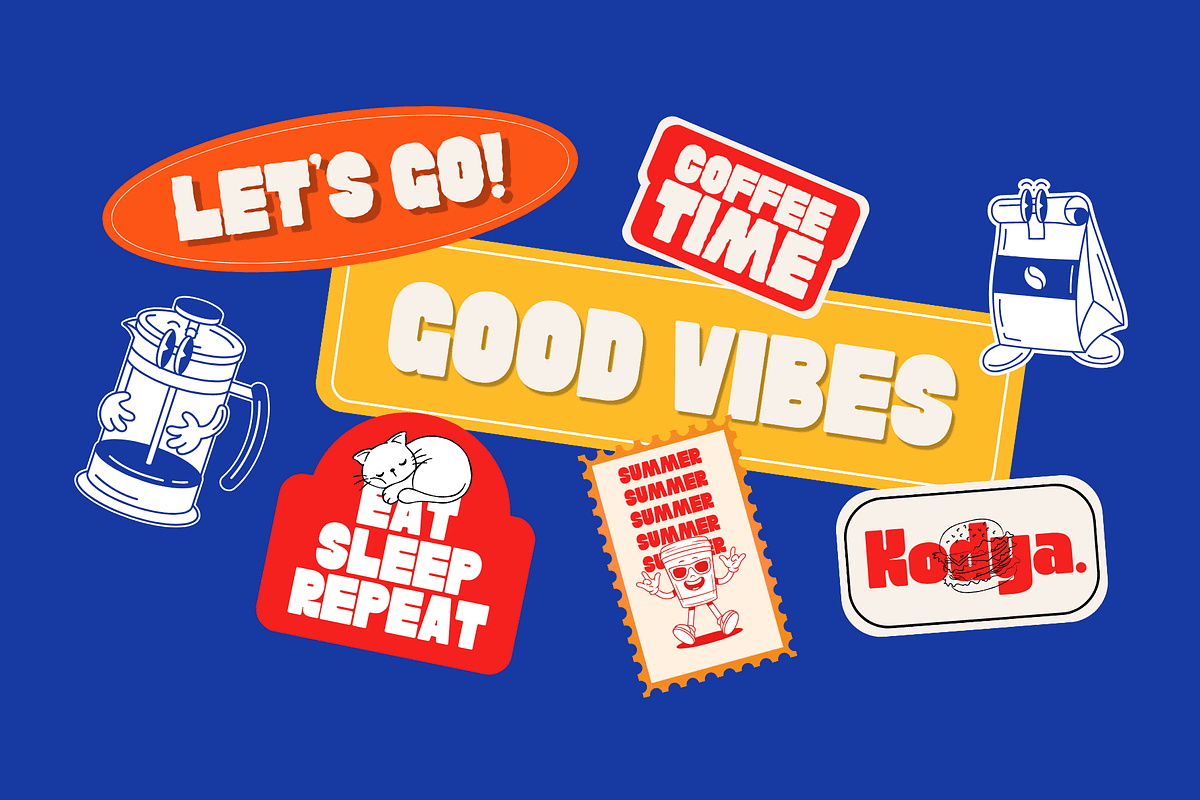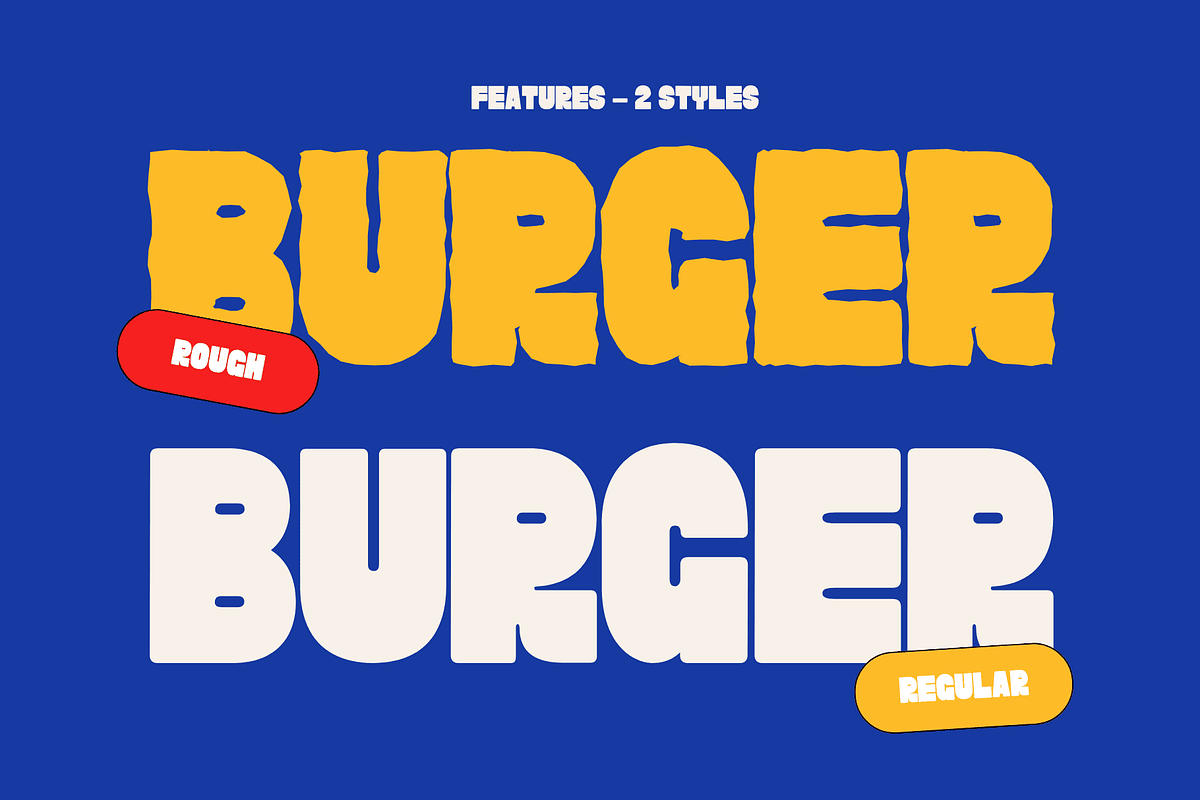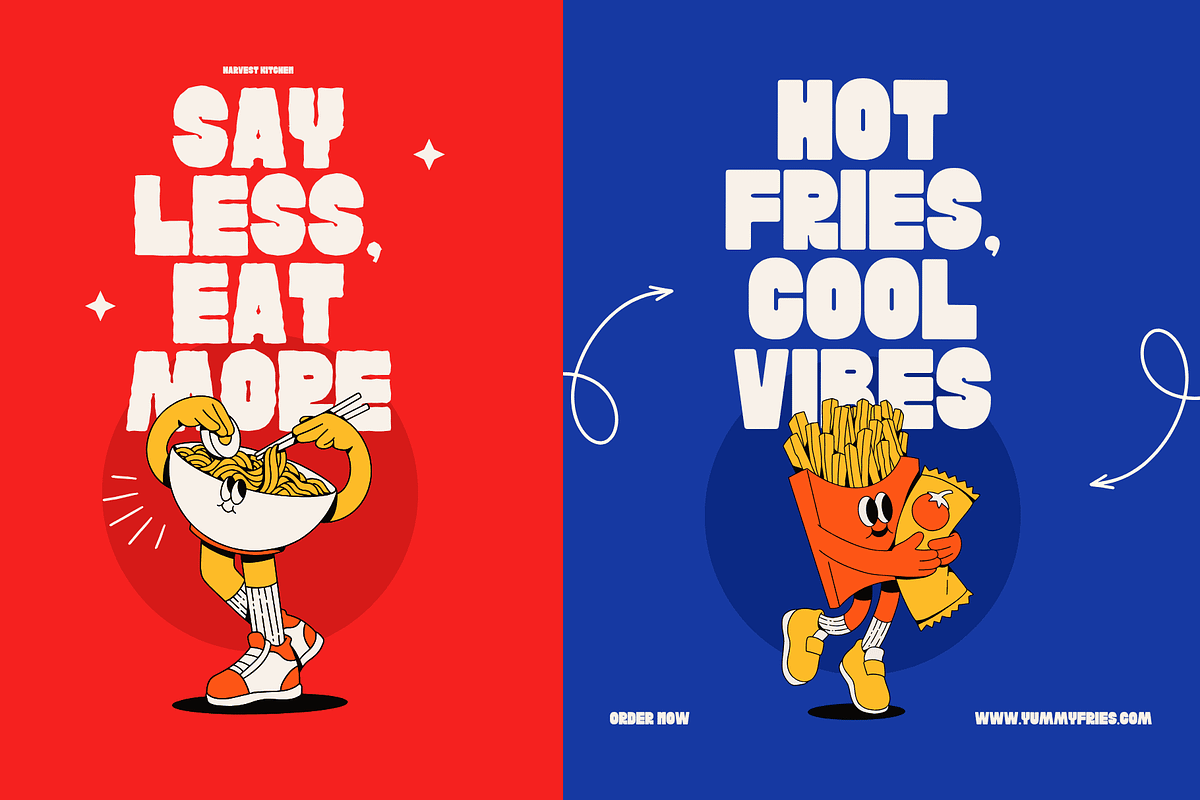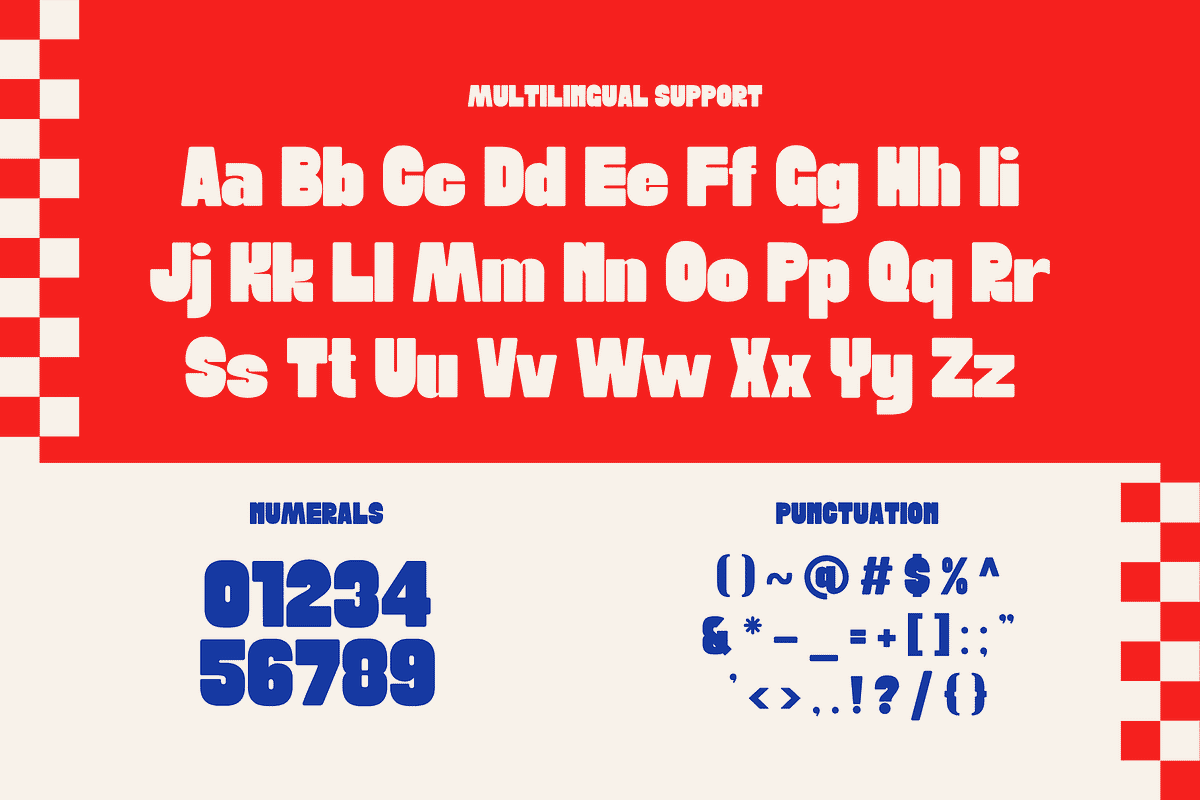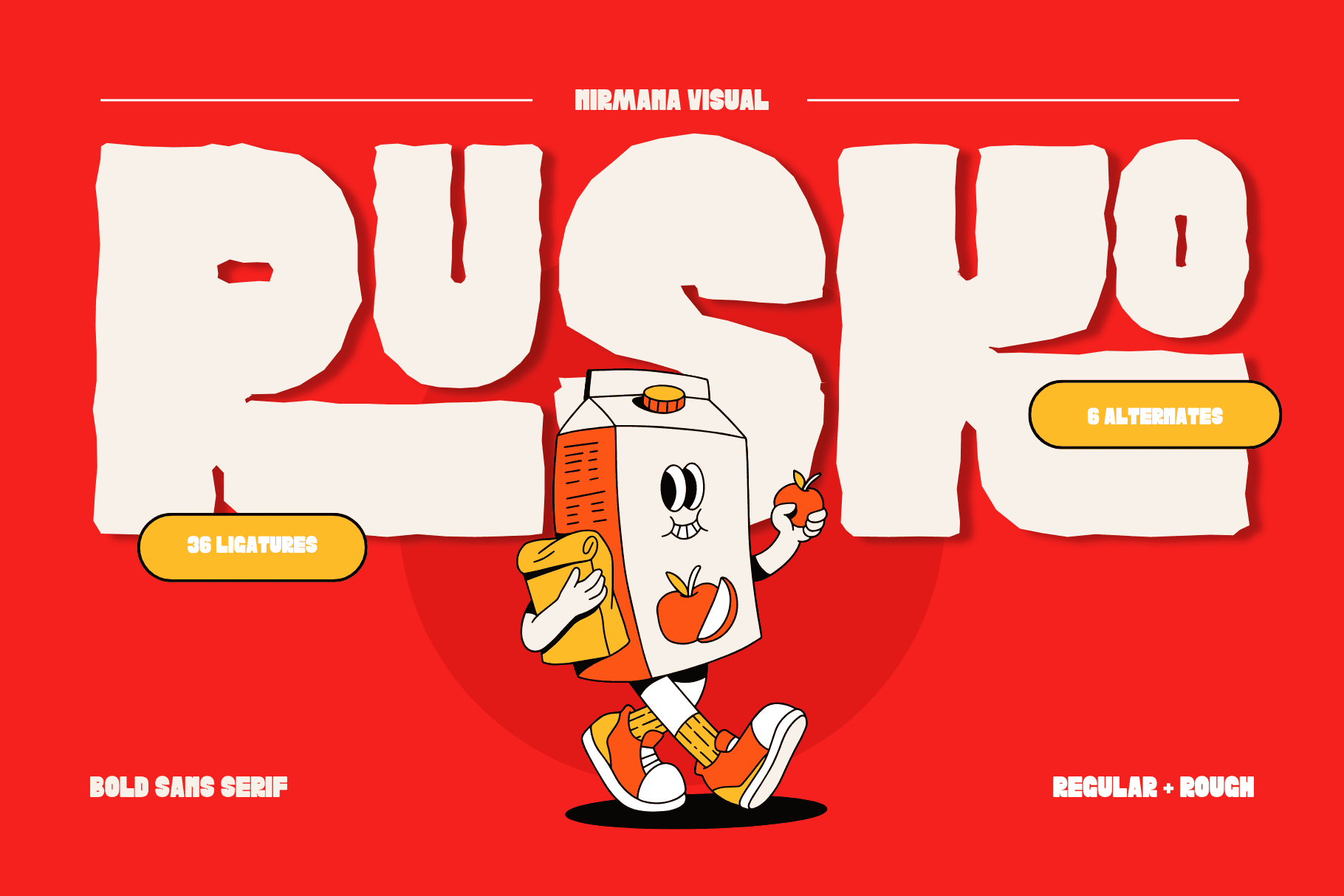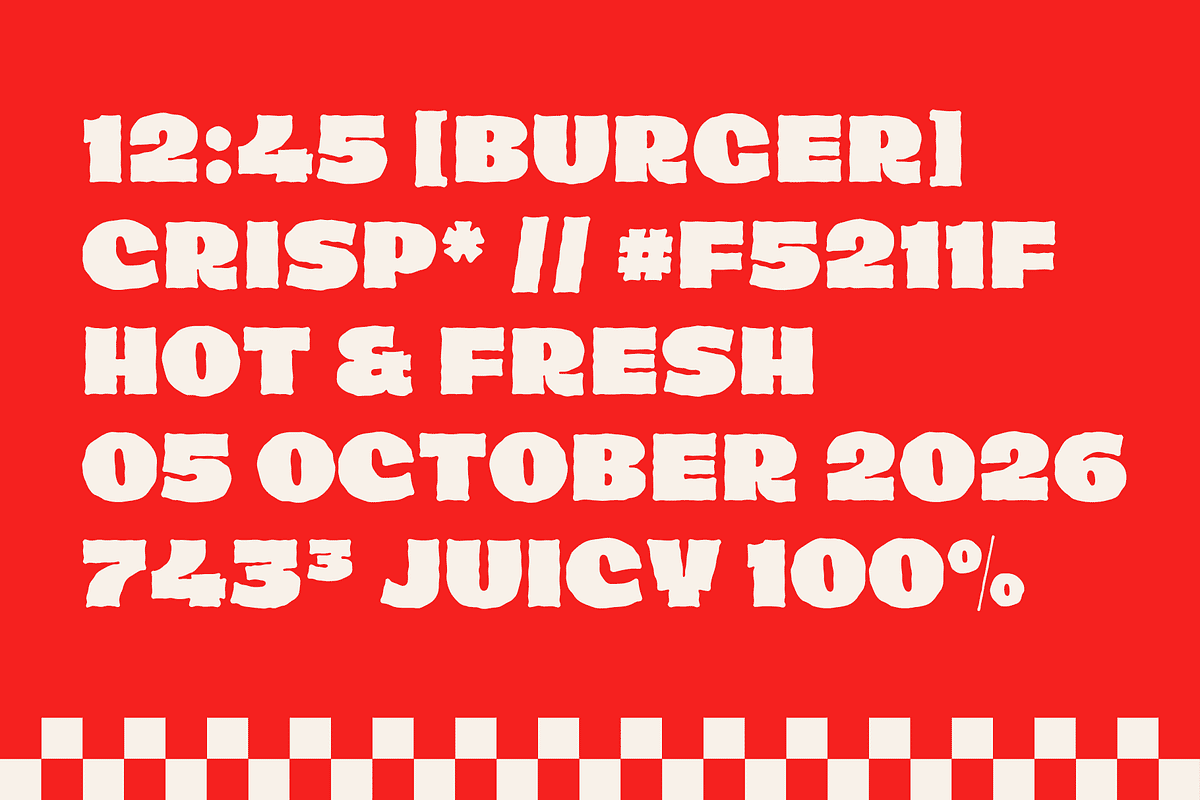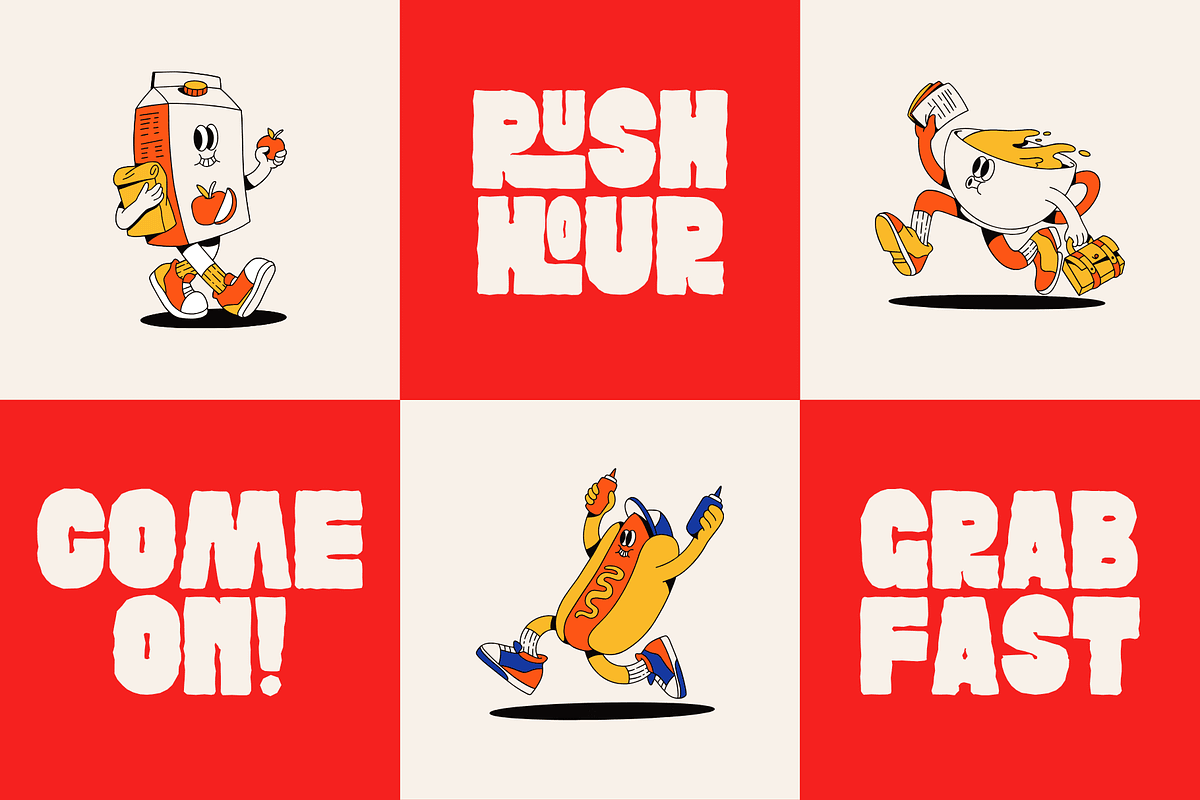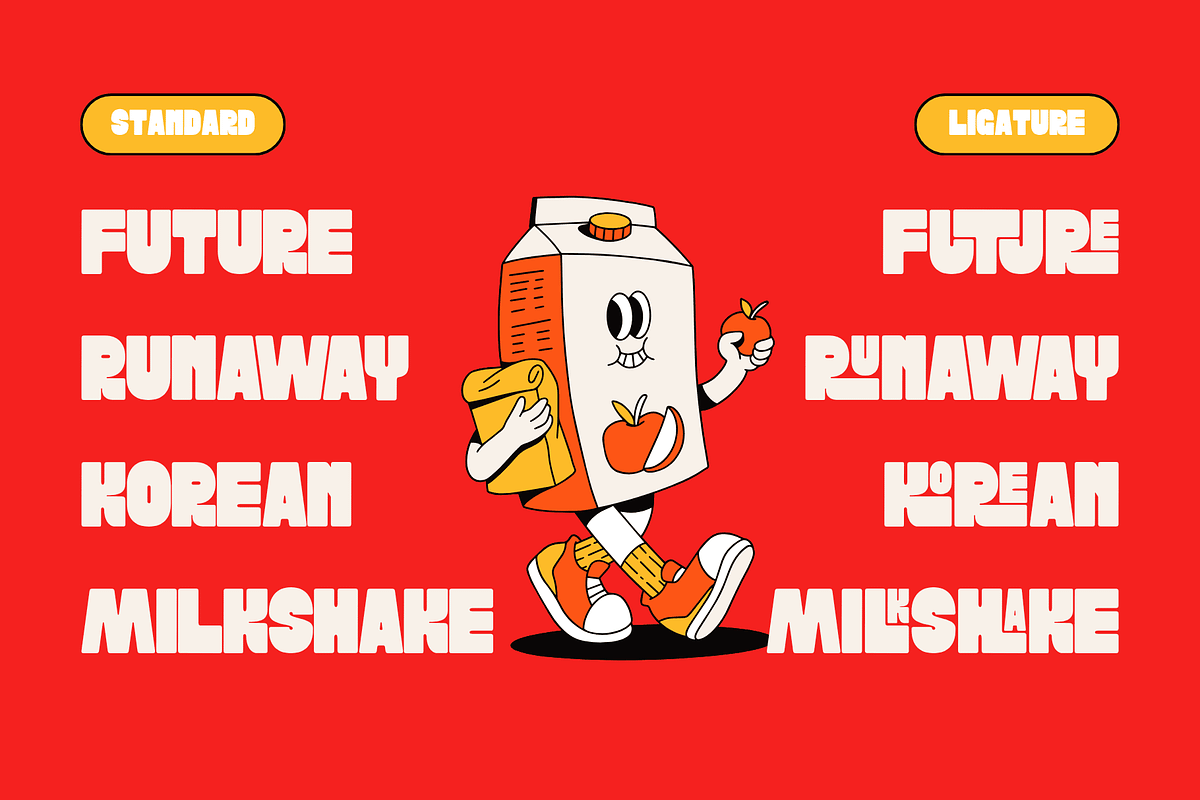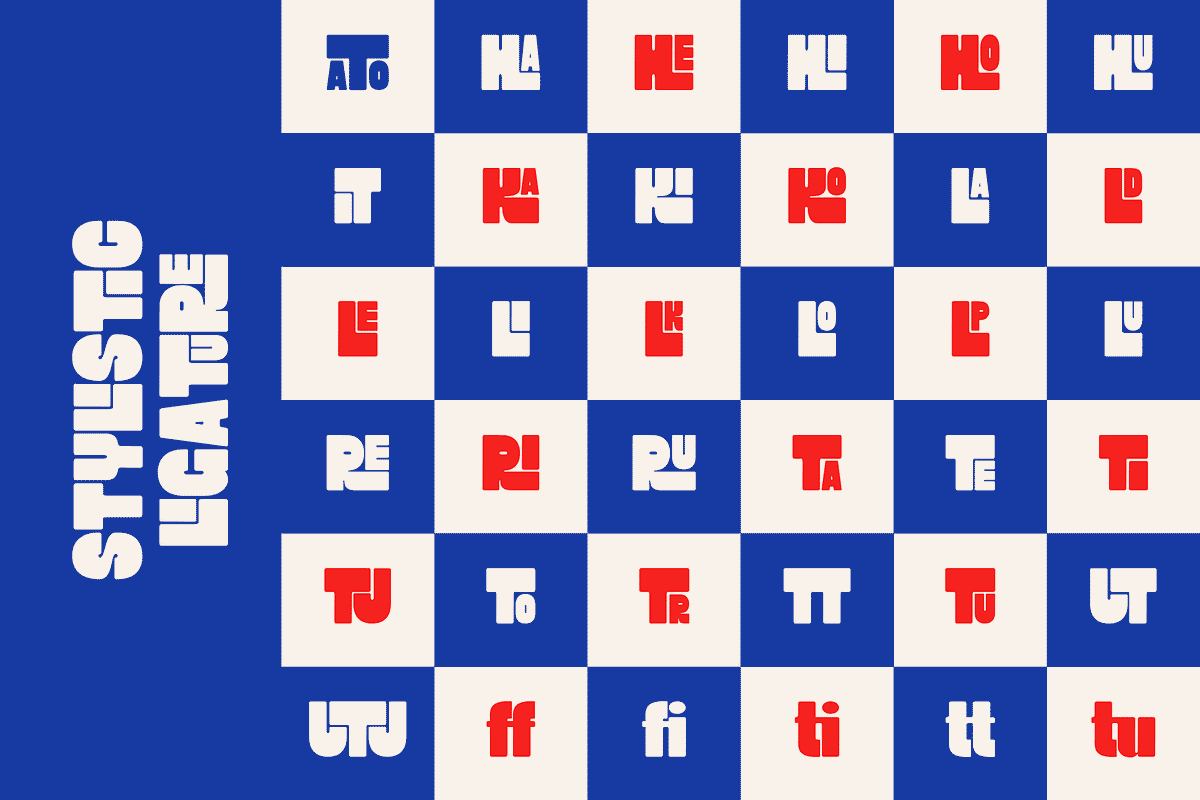
Rusko - Bold Display Font
RUSKO – Bold Playful Sans Serif Font
Introducing RUSKO, a bold, energetic, and playful sans-serif font designed to bring an instant burst of personality to your creative projects. With its thick, chunky letterforms and quirky, hand-drawn feel, RUSKO is the ultimate display typeface for designers looking to create eye-catching, high-impact visuals.
Whether you are designing retro-inspired packaging, vibrant streetwear branding, or modern kids' product layouts, this versatile font pack delivers an unmistakable, fun-loving aesthetic that grabs attention immediately.
Two Distinct Styles for Maximum Creativity
RUSKO comes packed with 2 font styles to give your designs the perfect texture:
Regular: A clean, solid, and punchy look for striking visual hierarchy.
Rough: A textured, slightly distressed version that adds a raw, organic, and vintage hand-printed charm to your artwork.
Loaded with OpenType Features
To ensure your typography never looks repetitive, RUSKO includes premium OpenType features that allow for endless customization:
36 Custom Ligatures: Seamlessly connect character pairs for a unique, fluid, and custom-lettered look.
6 Stylistic Alternates: Swap out characters to add unexpected variety and playfulness to your titles and logos.
Best Suited For:
This bold display font is perfect for a wide range of creative applications, including bold logo design, retro cartoon illustrations, food and beverage packaging (like juice cartons and snack boxes), t-shirt printing, poster design, book covers, social media graphics, and modern UI/UX design that needs a friendly yet impactful touch.